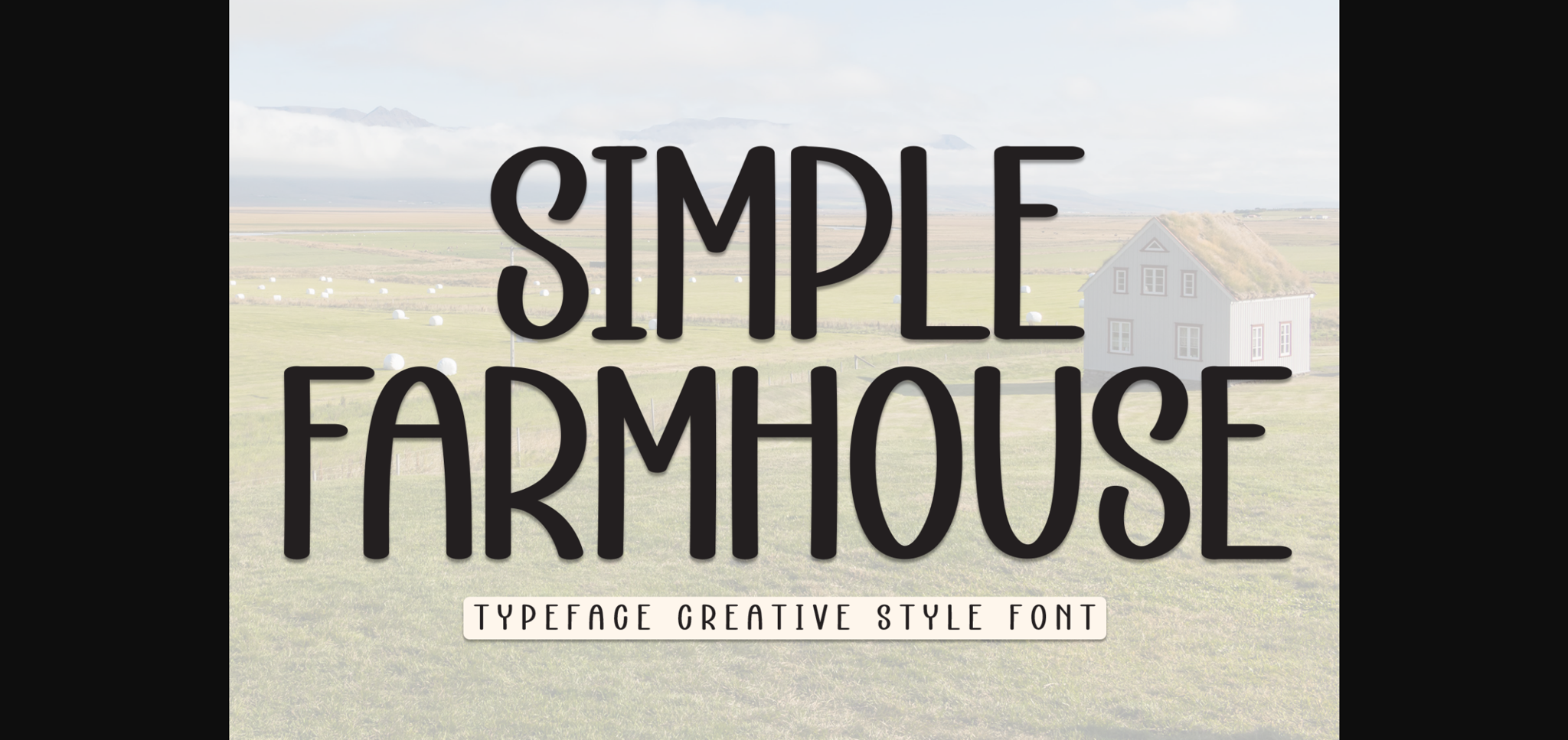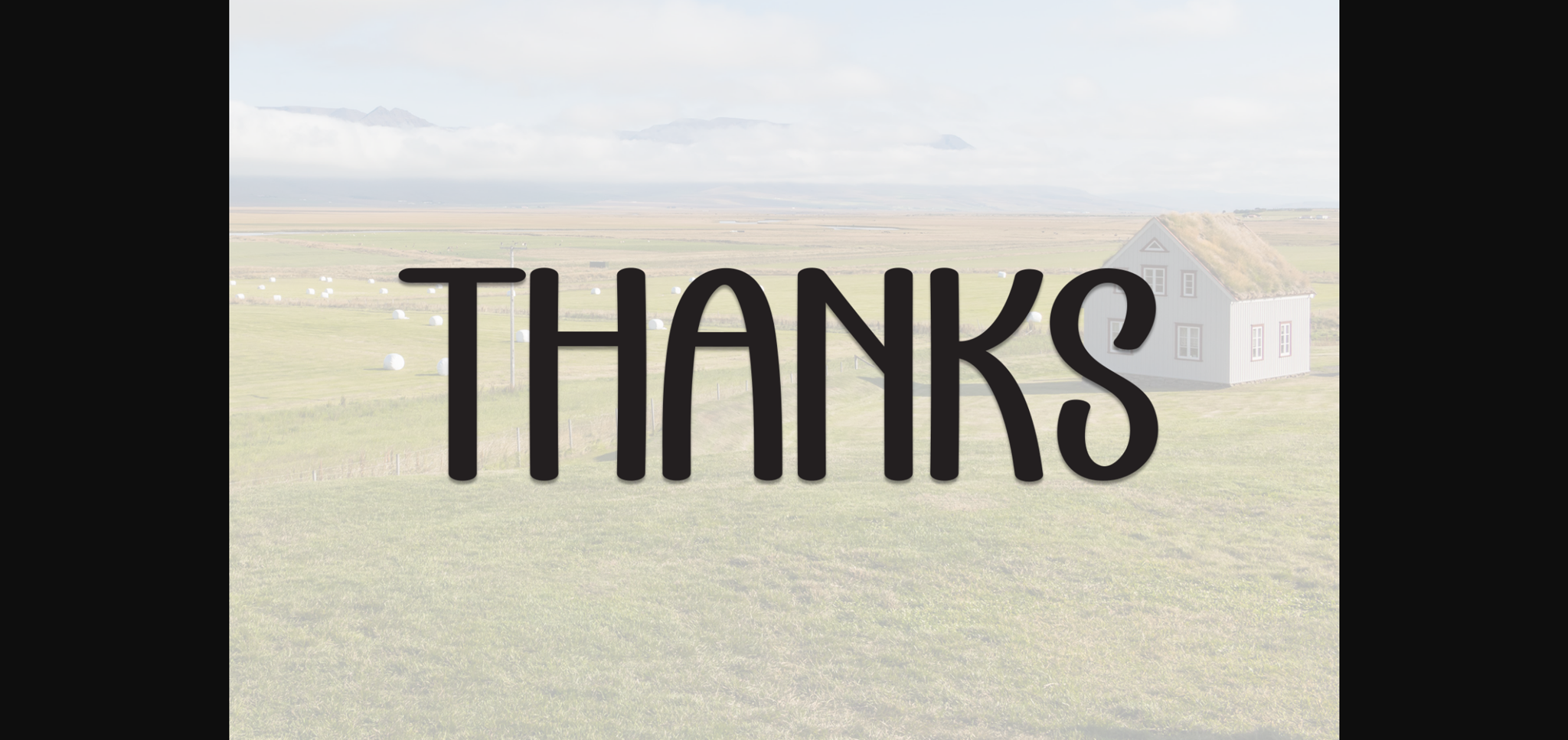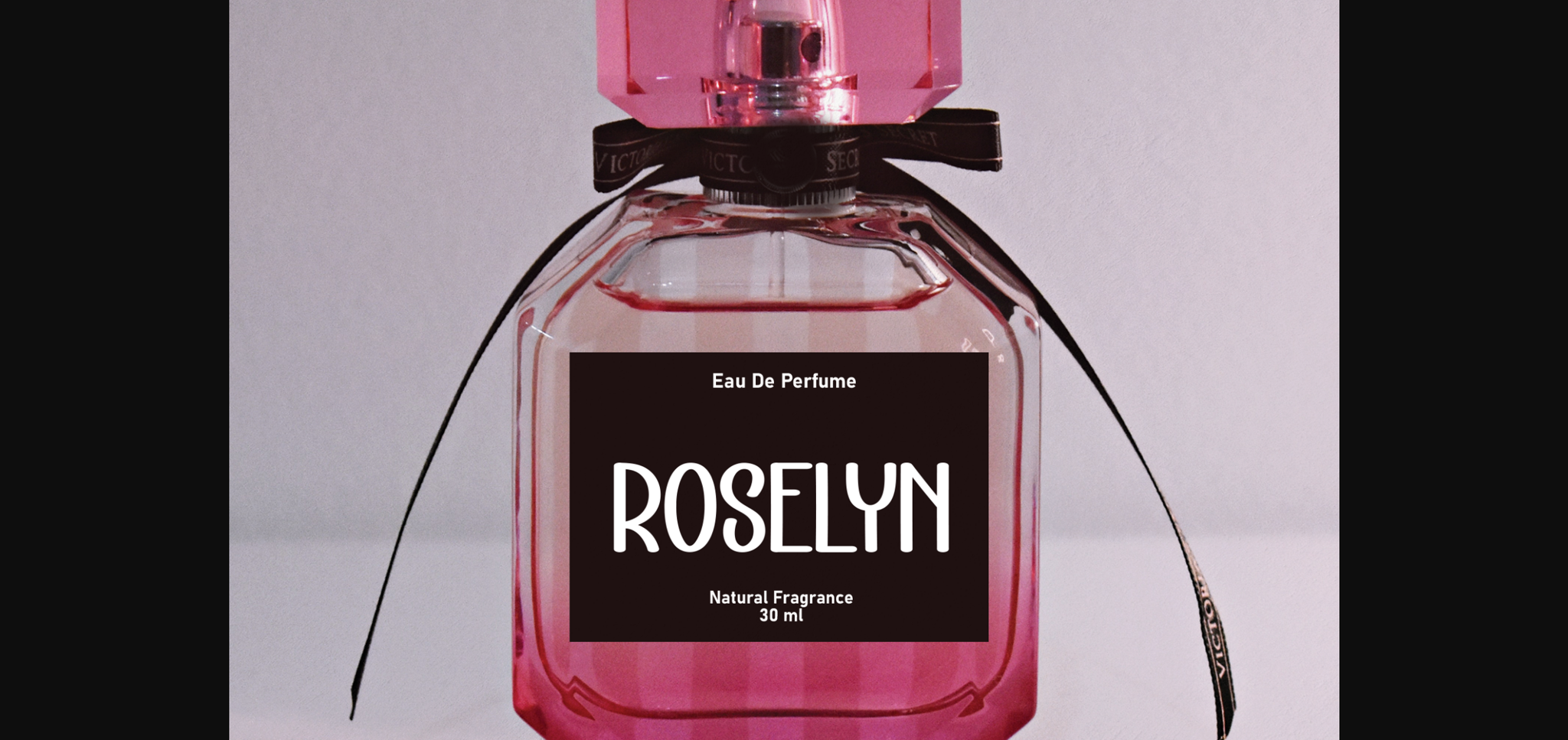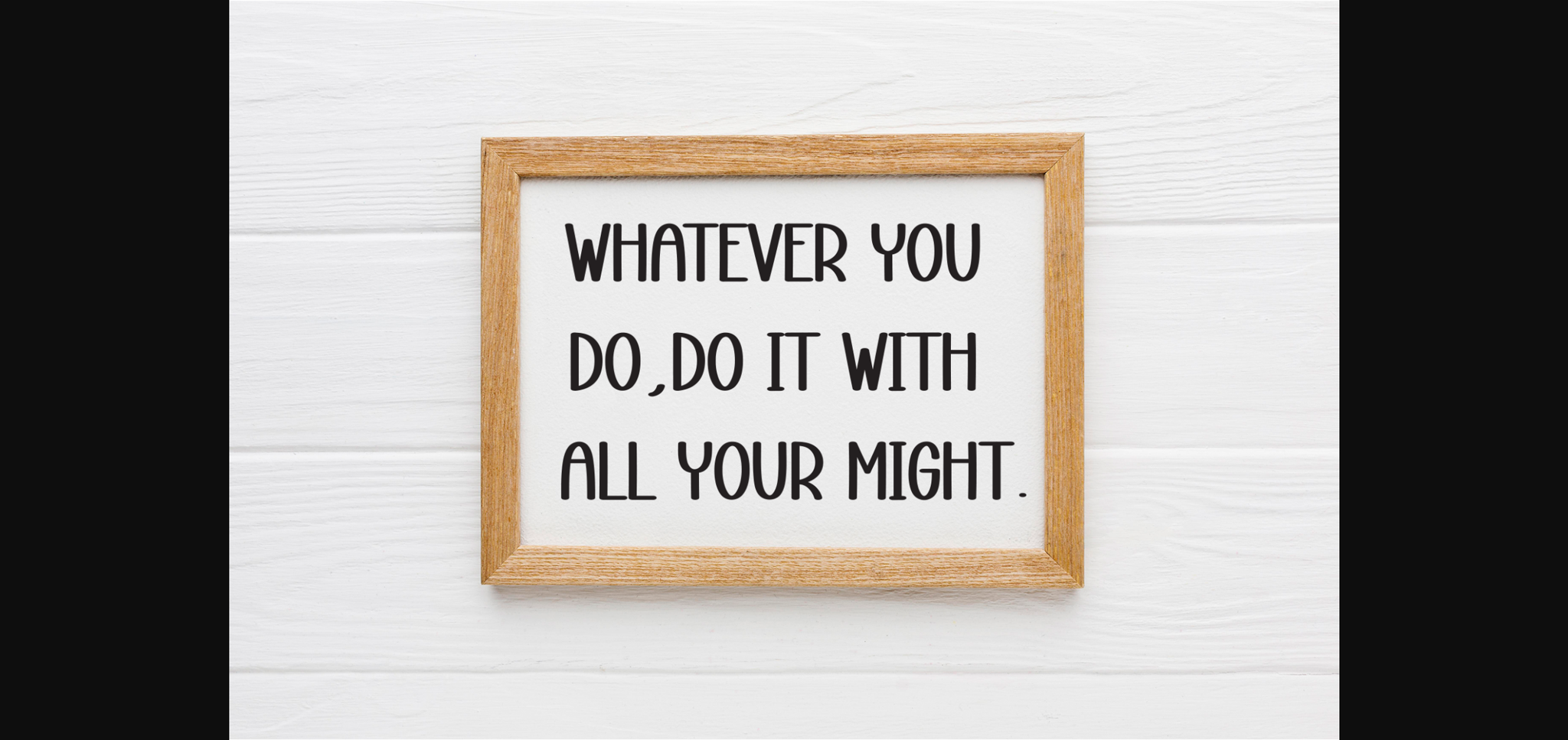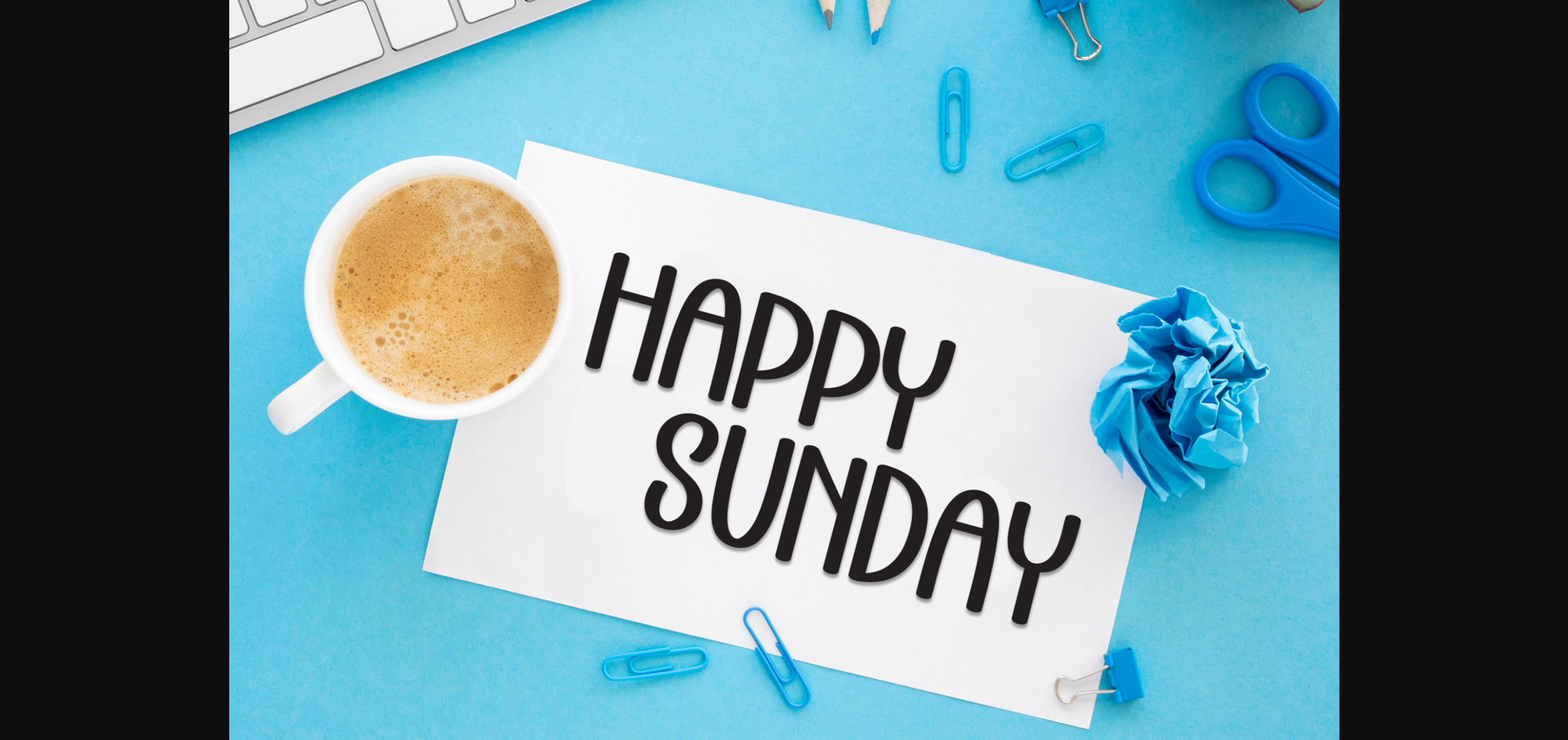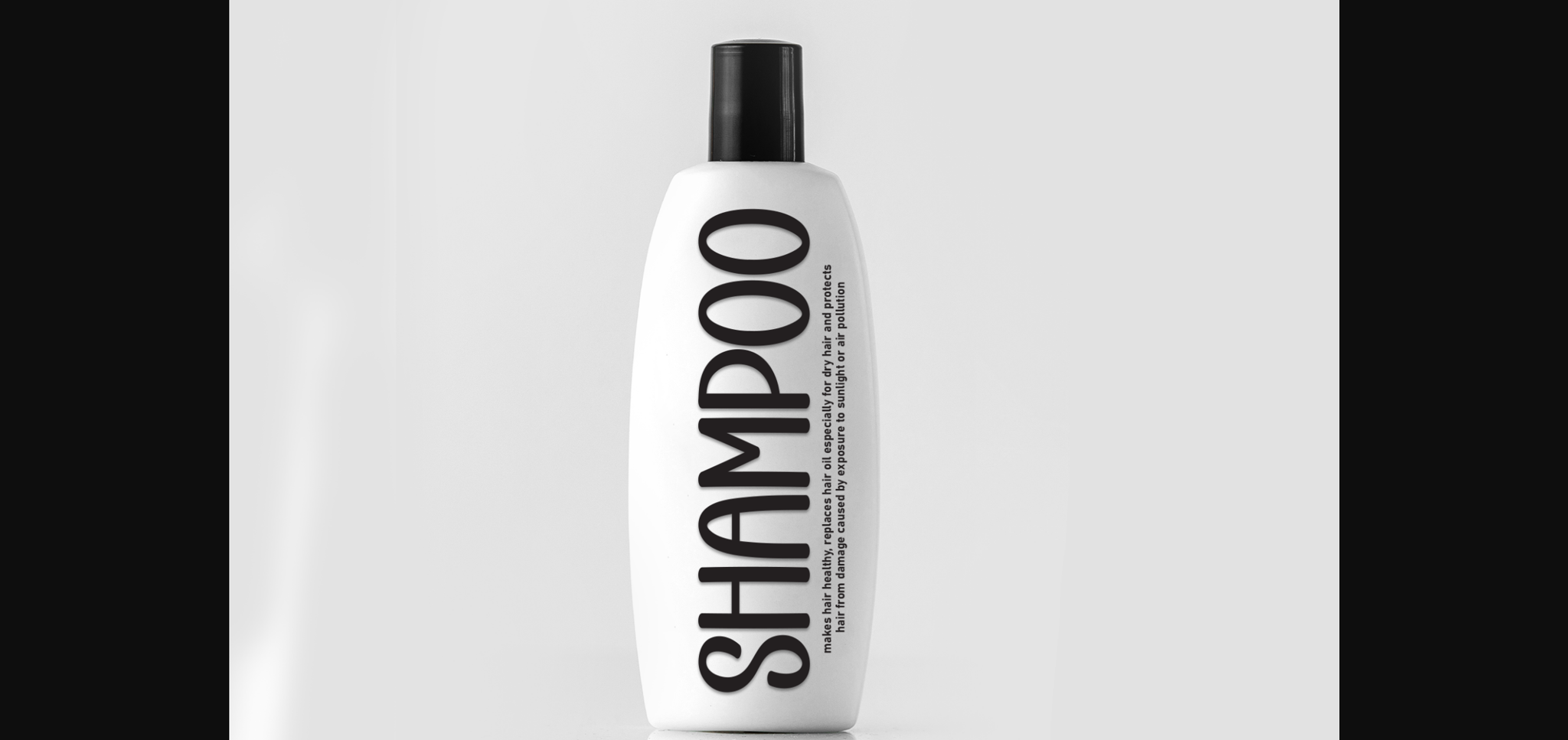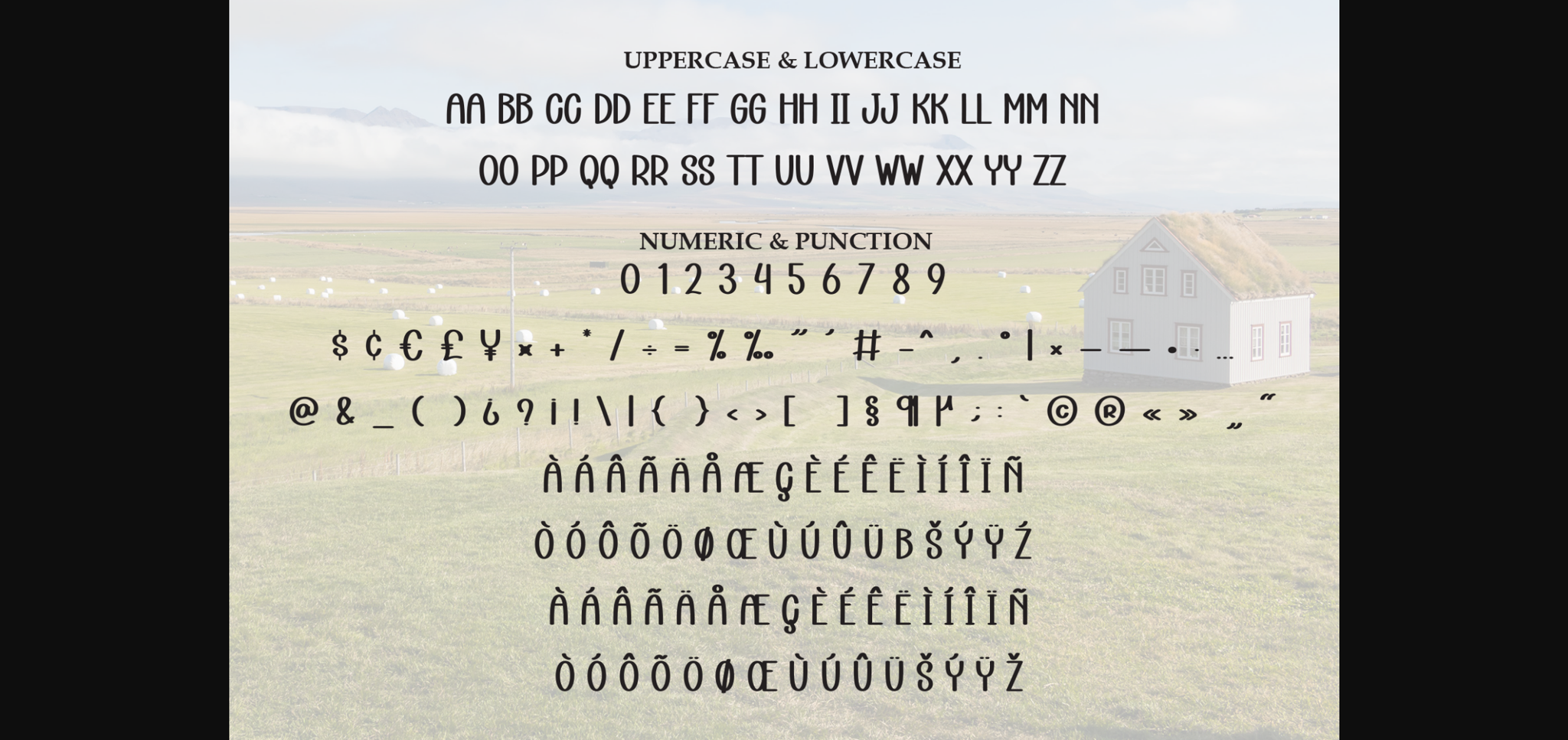
Simple Farmhouse Font
About Simple Farmhouse Font
Simple Farmhouse is a fun and casual sans-serif font that radiates a carefree spirit. With its friendly letterforms and approachable style, it brings a lighthearted charm to your designs. Ideal for projects that demand a relaxed and joyful aesthetic, Simple Farmhouse adds a delightful and easygoing flair to your creative expressions.